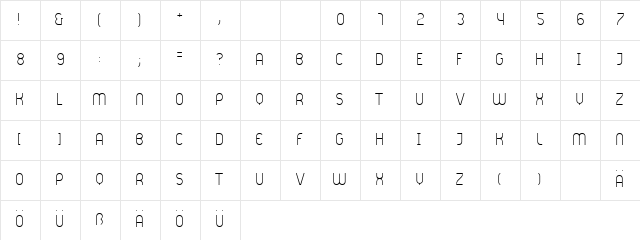
Mass Thin
Design Context for Mass
Mass is a composed and adaptable typeface that performs quietly and consistently across a wide range of design contexts. Its slender proportions lend an understated elegance to any composition.